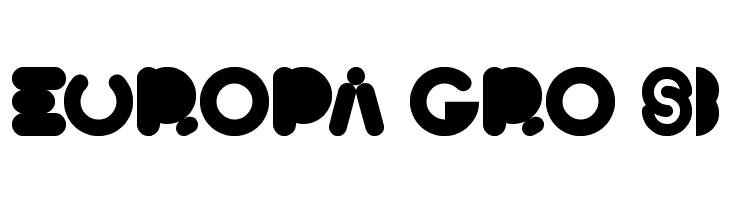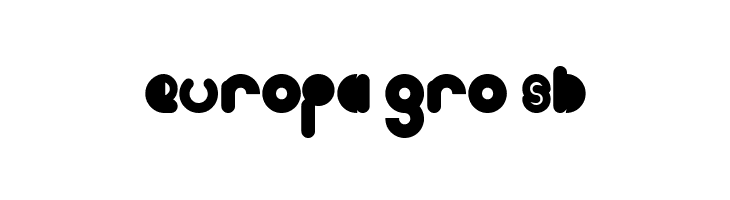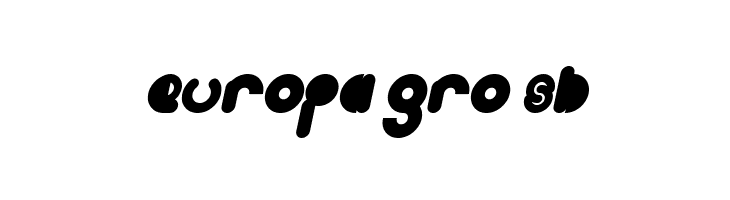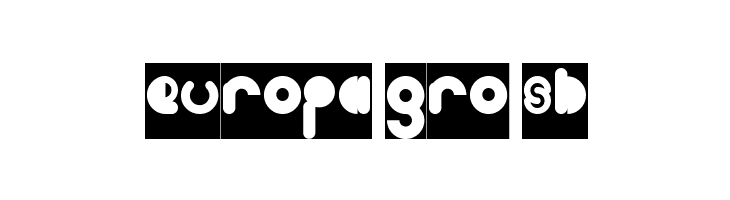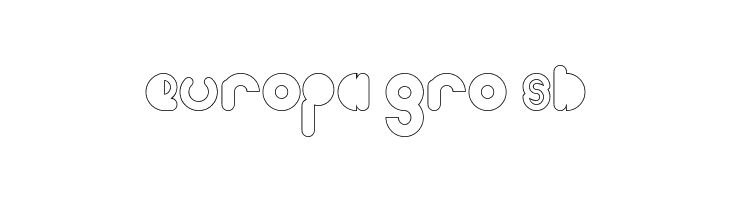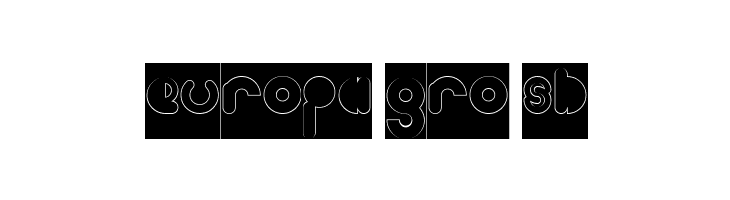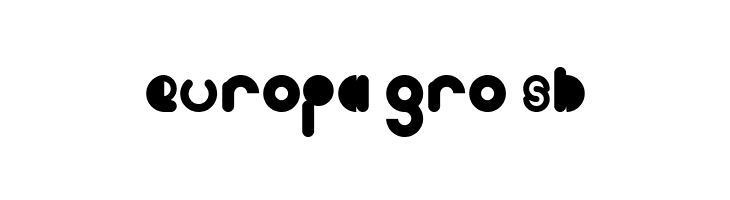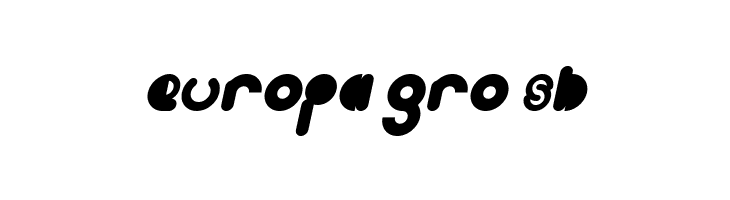
A bold, geometric font with a playful and modern design.
A bold, playful font with rounded, bubble-like characters and a modern, quirky style.
A bold, playful font with rounded, bubble-like characters and an italic style.
A bold, playful font with rounded, bubble-like characters.
A modern, hollow font with rounded edges and geometric shapes.
A hollow, inverse font with bold outlines and a geometric, modern style.
A bold, playful font with rounded, inverse-style characters.
A bold, geometric font with rounded shapes and a modern, playful style.